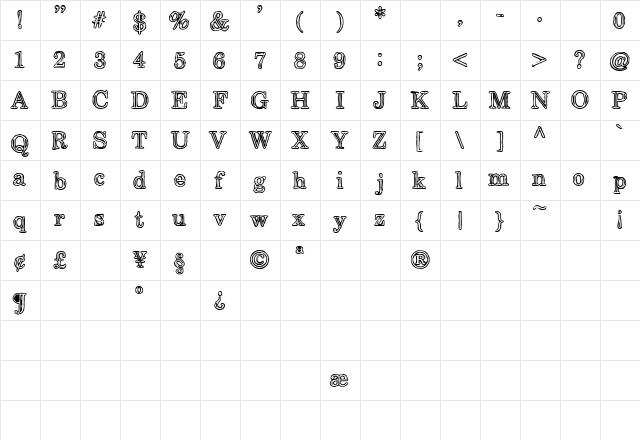
Steelcap Rubbing Regular Font Preview
Steelcap Rubbing Regular
Steelcap Rubbing Regular Font Details
Design Context for Steelcap Rubbing Typeface
Steelcap Rubbing takes a measured approach to typography — its balanced proportions and neutral character make it a reliable workhorse for both digital and print work.